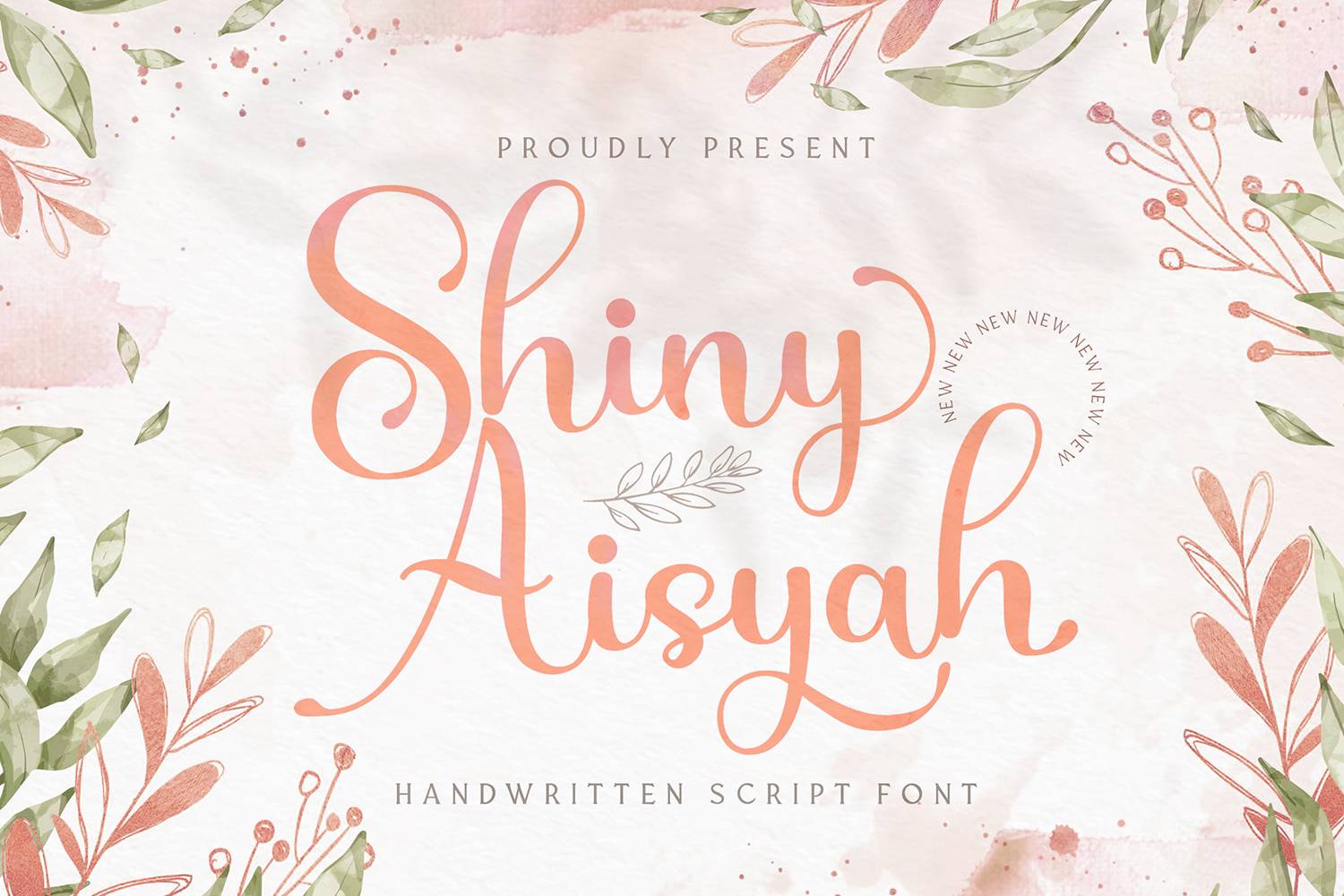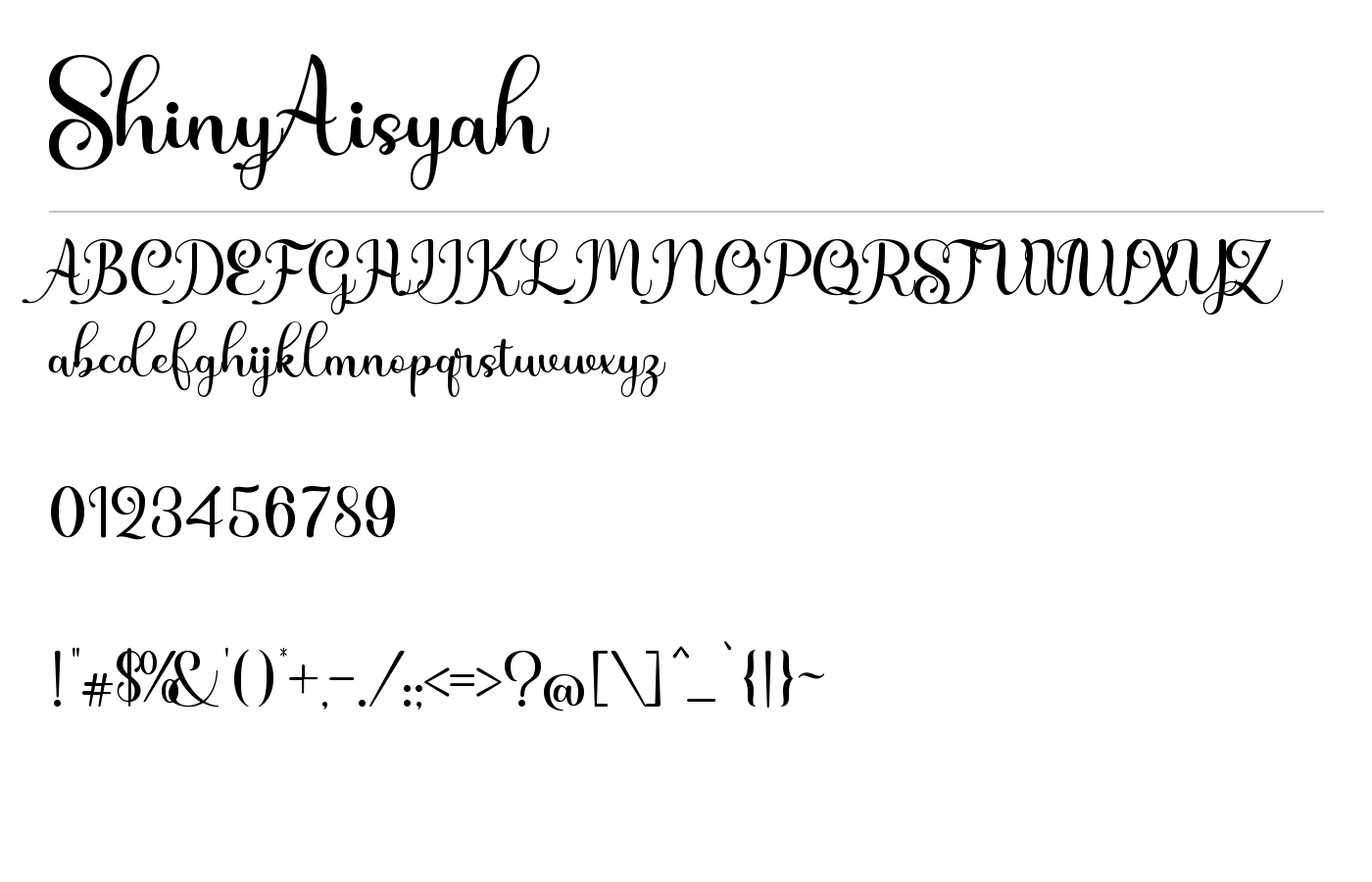
Shiny Aisyah is an elegant script font with flowing, decorative strokes that give it a graceful and stylish appearance. Its light to medium weight and tall x-height make it perfect for adding a sophisticated, personal touch to wedding invitations, branding, and feminine designs. The font’s smooth, curvy letterforms and tasteful flourishes make it ideal for headlines and logos where a sense of beauty and charm is desired.
Shiny Aisyah Font
About Shiny Aisyah Font
| Font family | Shiny Aisyah Font |